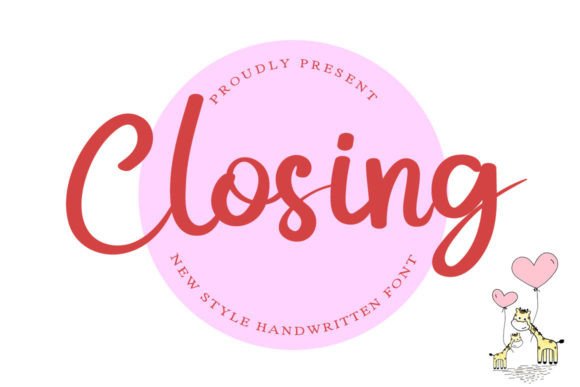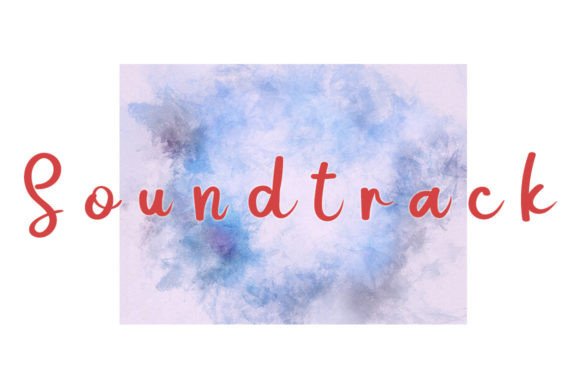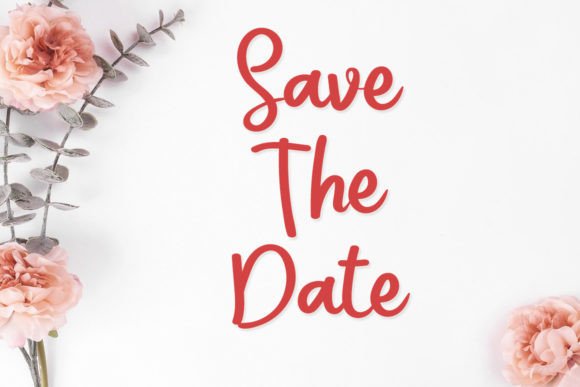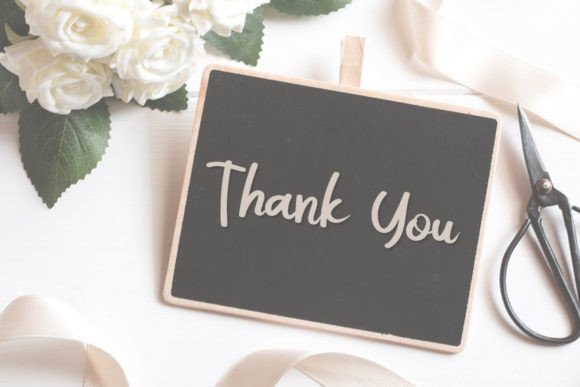
Closing Font
About Closing Font
“Closing” is a beautiful and sweet font that radiates freshness, cleanliness, and elegance. Its versatile design makes it suitable for a wide range of projects, whether they are formal or informal in nature. This font has the unique ability to infuse your designs with an incredibly joyful touch.
The font’s beauty lies in its capacity to bring a sense of elegance and joy to your work. Its fresh and clean appearance makes it suitable for various design applications, allowing you to convey a polished and joyful aesthetic in your projects.
“Closing” is a font that can adapt effortlessly to different design contexts and themes, making it a valuable asset for designers seeking to add a touch of beauty and joy to their work.
In summary, “Closing” is more than just a font; it’s a creative asset that brings a sense of freshness and joy to your design endeavors. Its beautiful and sweet design, combined with its adaptability, makes it a valuable addition to your font collection. Embrace “Closing” and experience how it enhances your creative projects with its elegance and joyful typography.